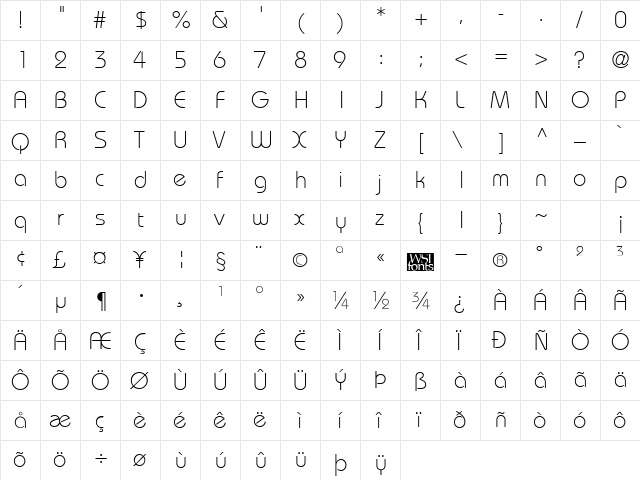
BordeauxLight Regular
Design Context for BordeauxLight Typeface
BordeauxLight takes a measured approach to typography — its balanced proportions and neutral character make it a reliable workhorse for both digital and print work. The delicate stroke weight brings airiness and refinement to layouts.